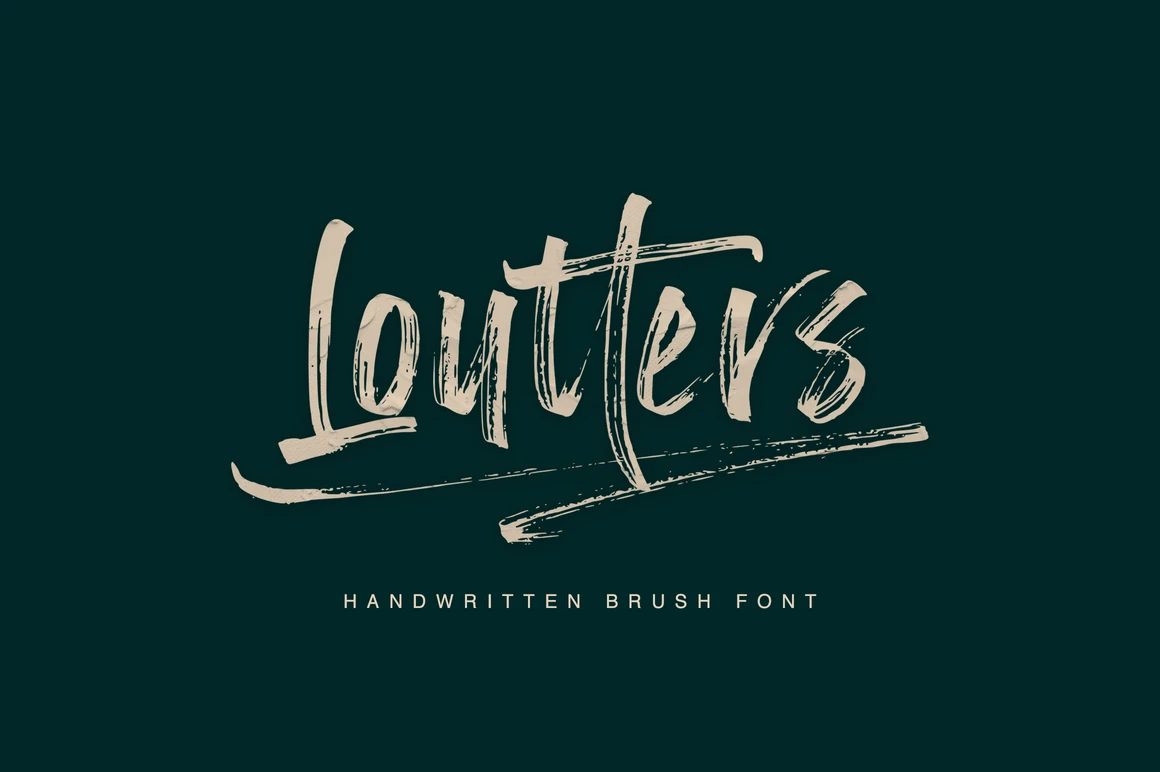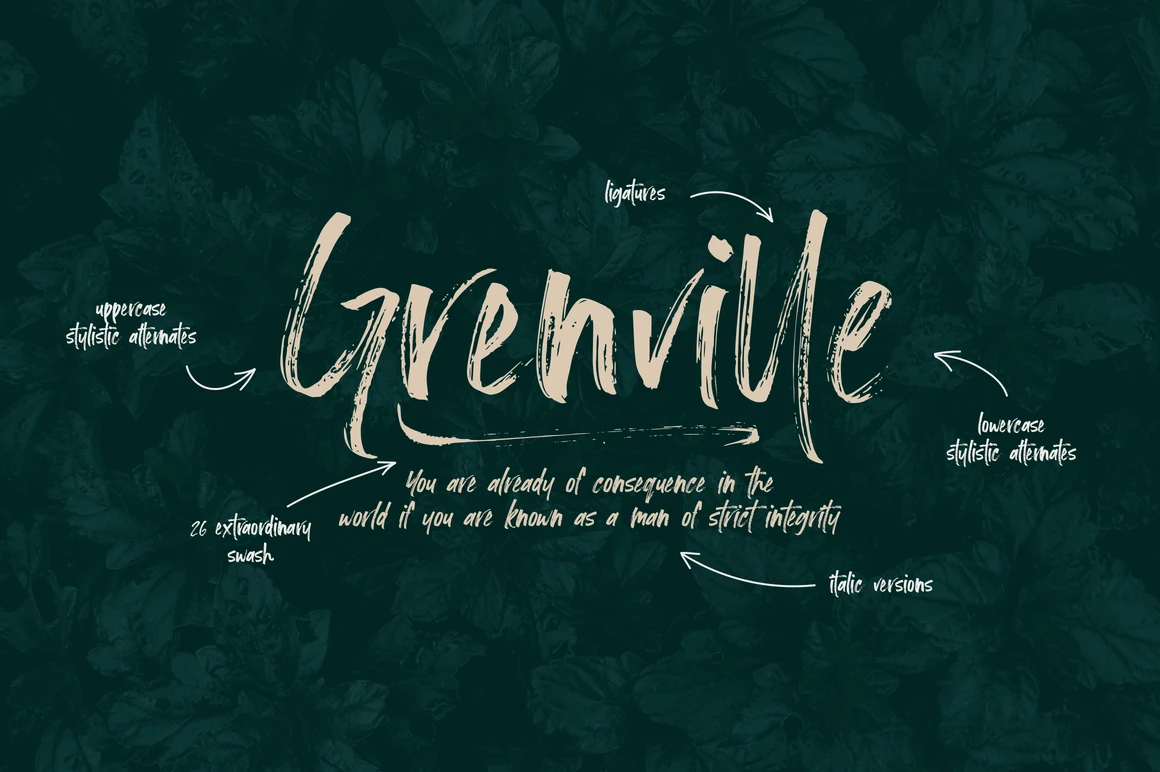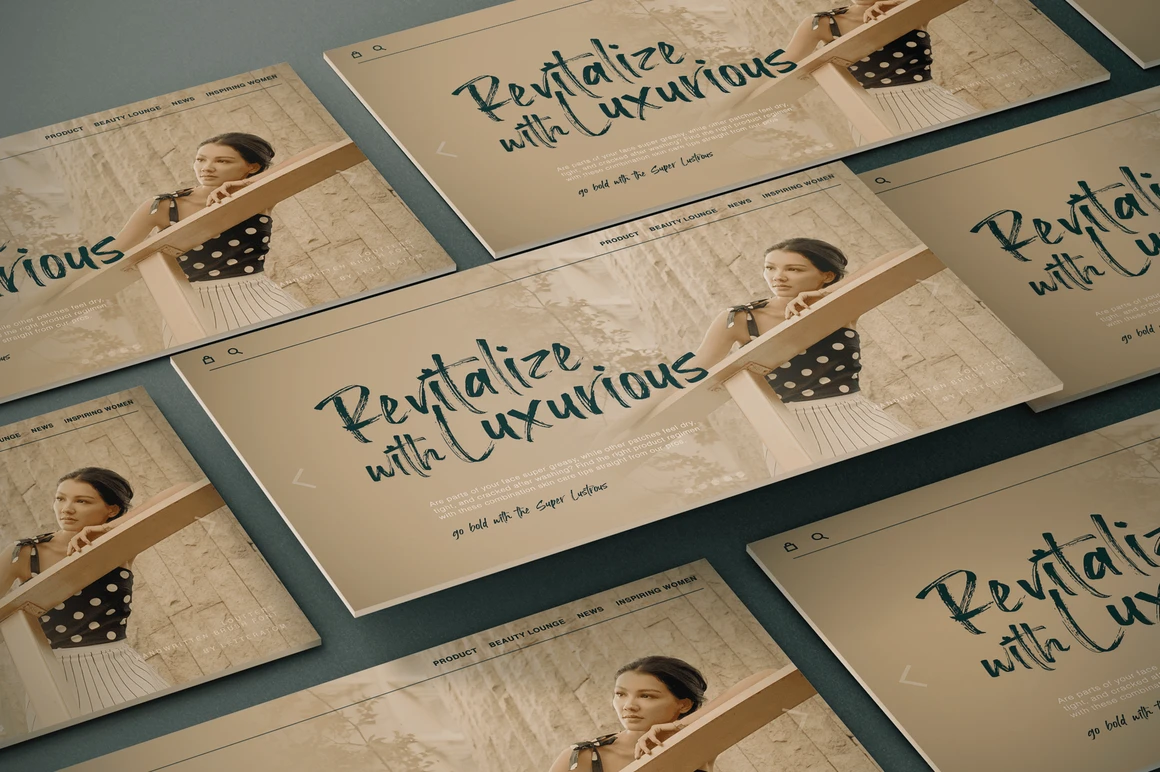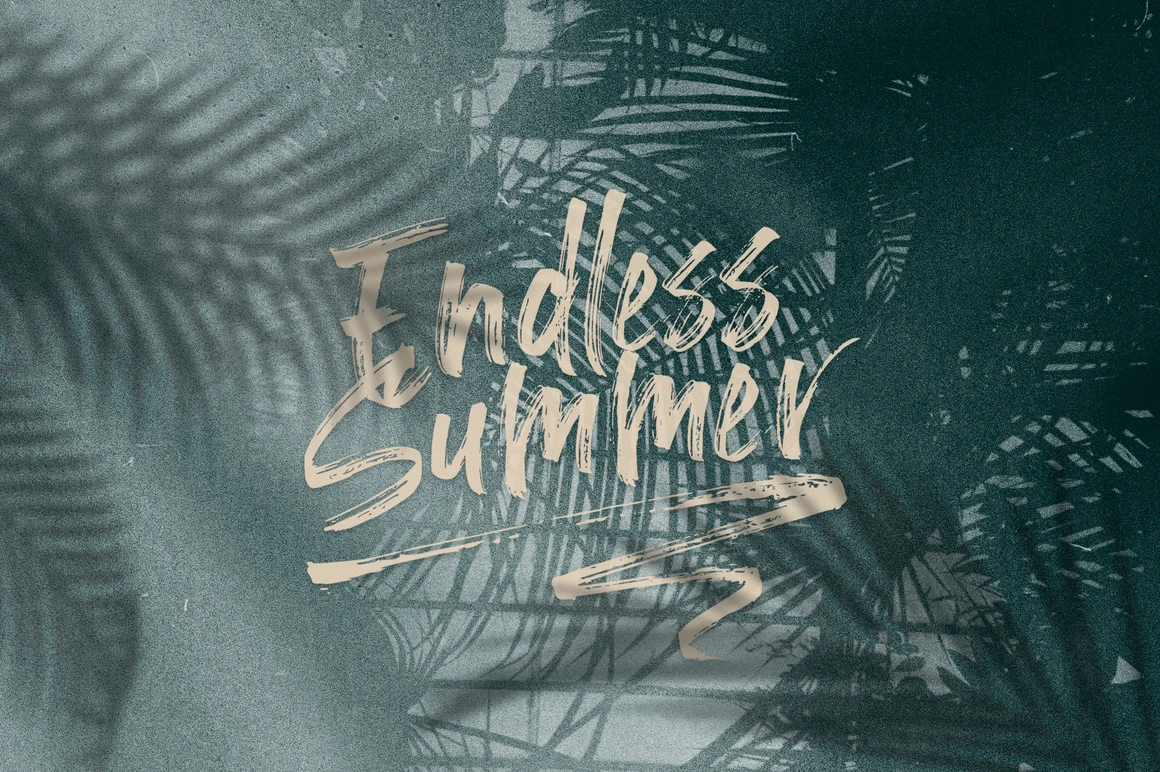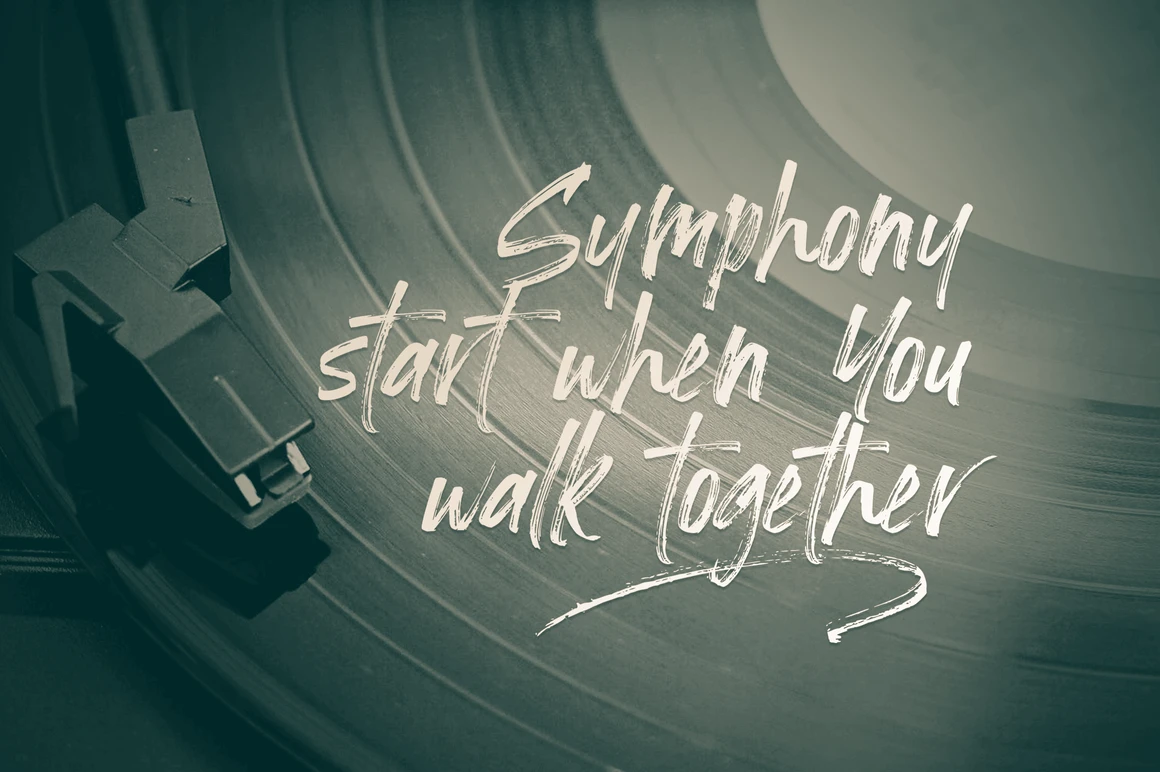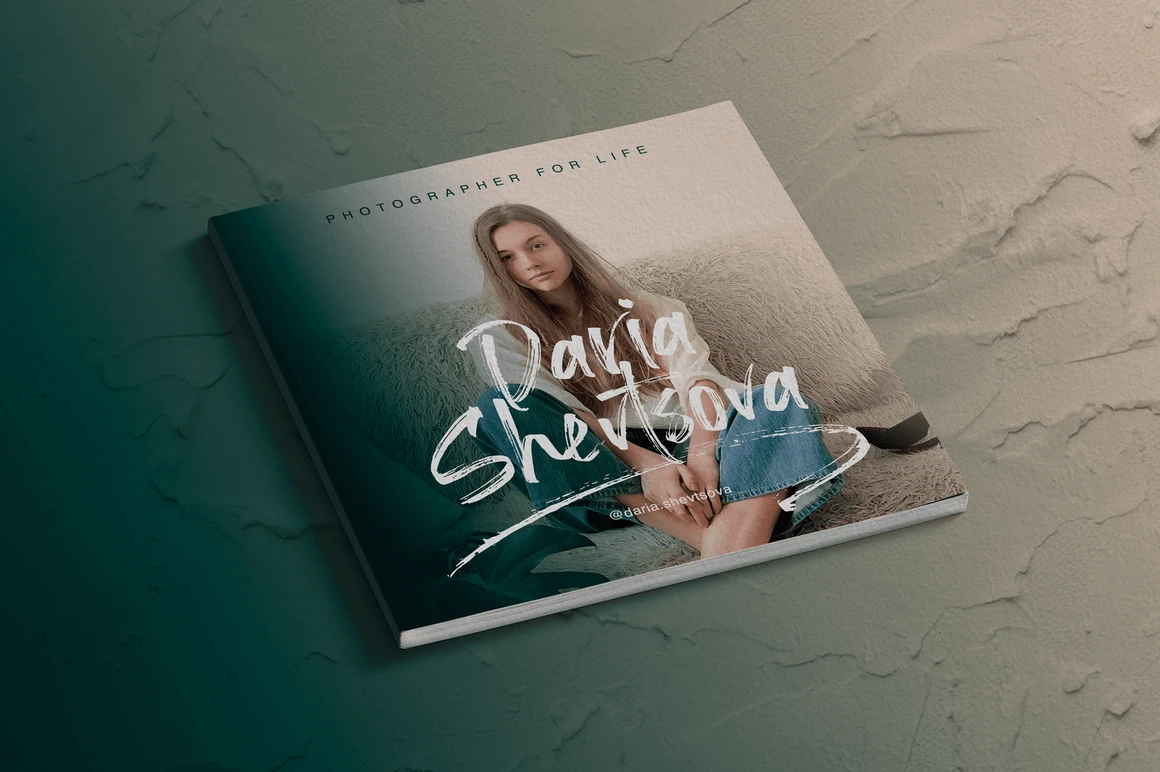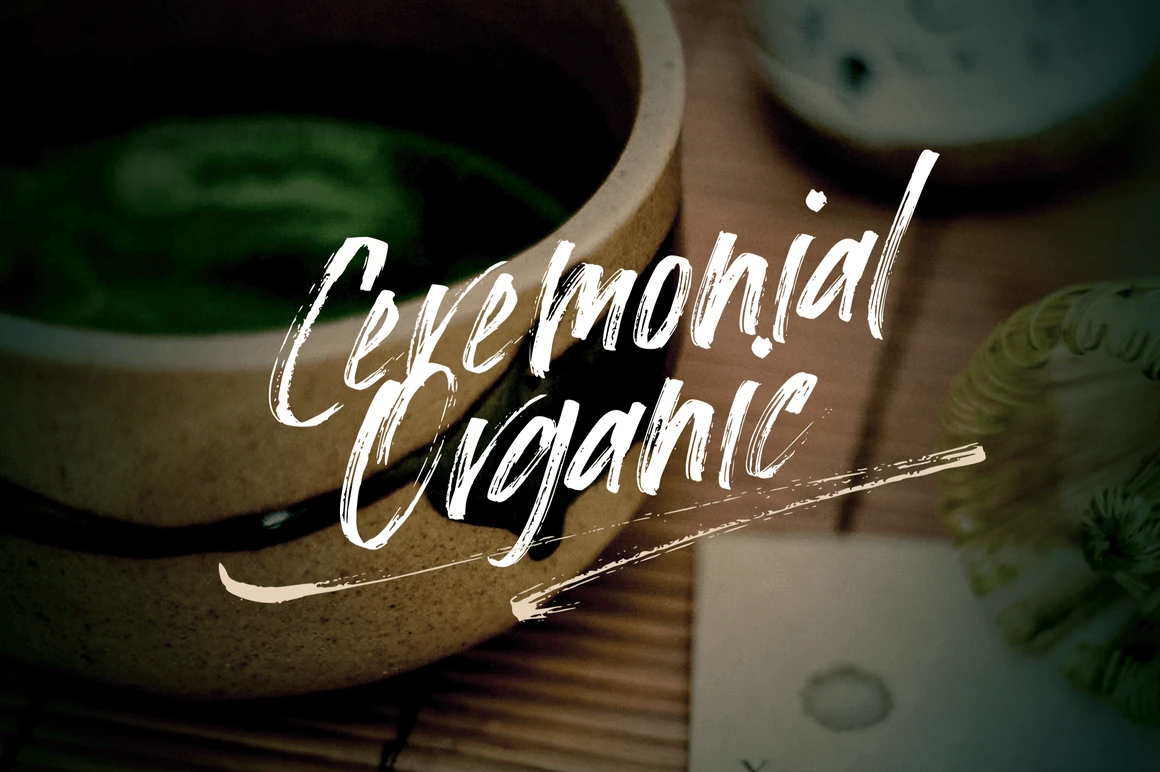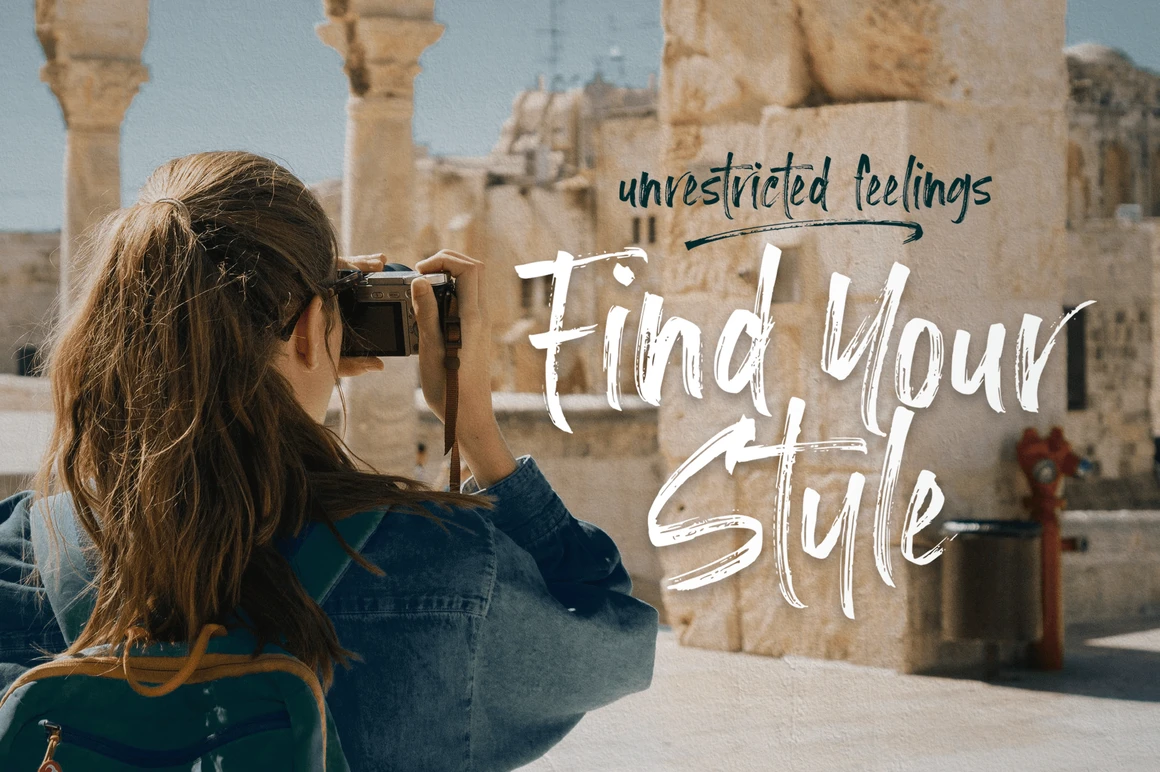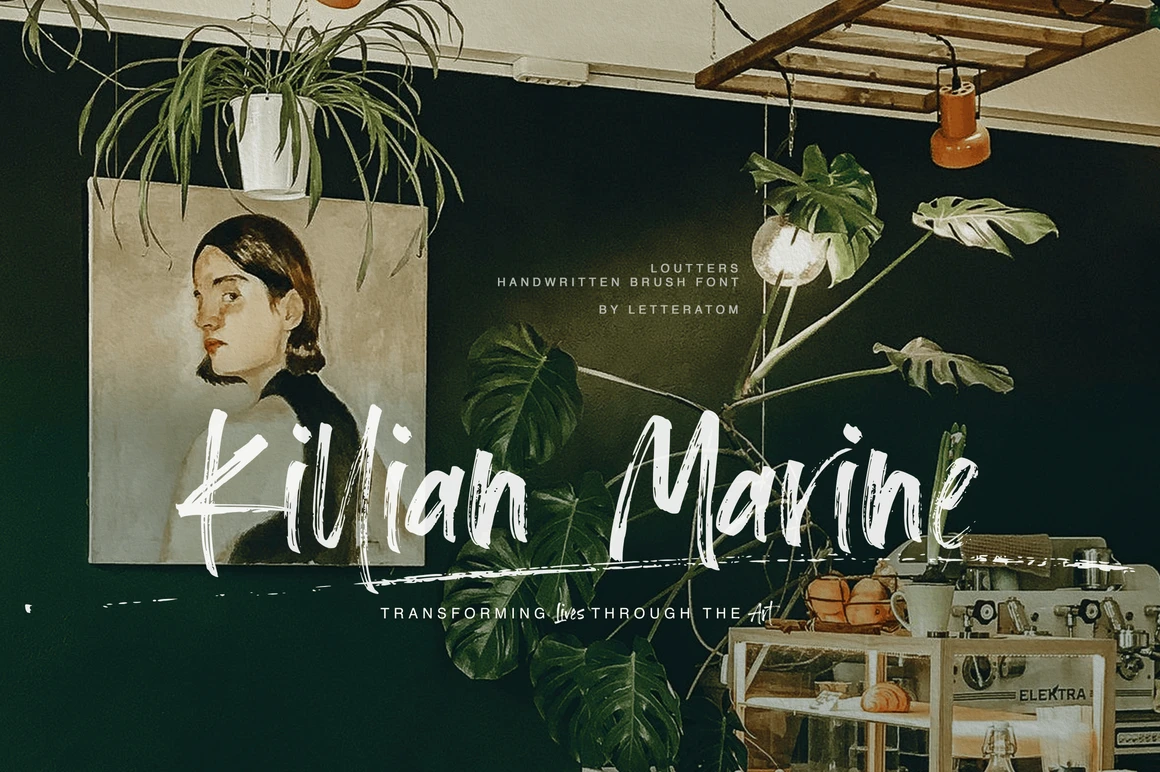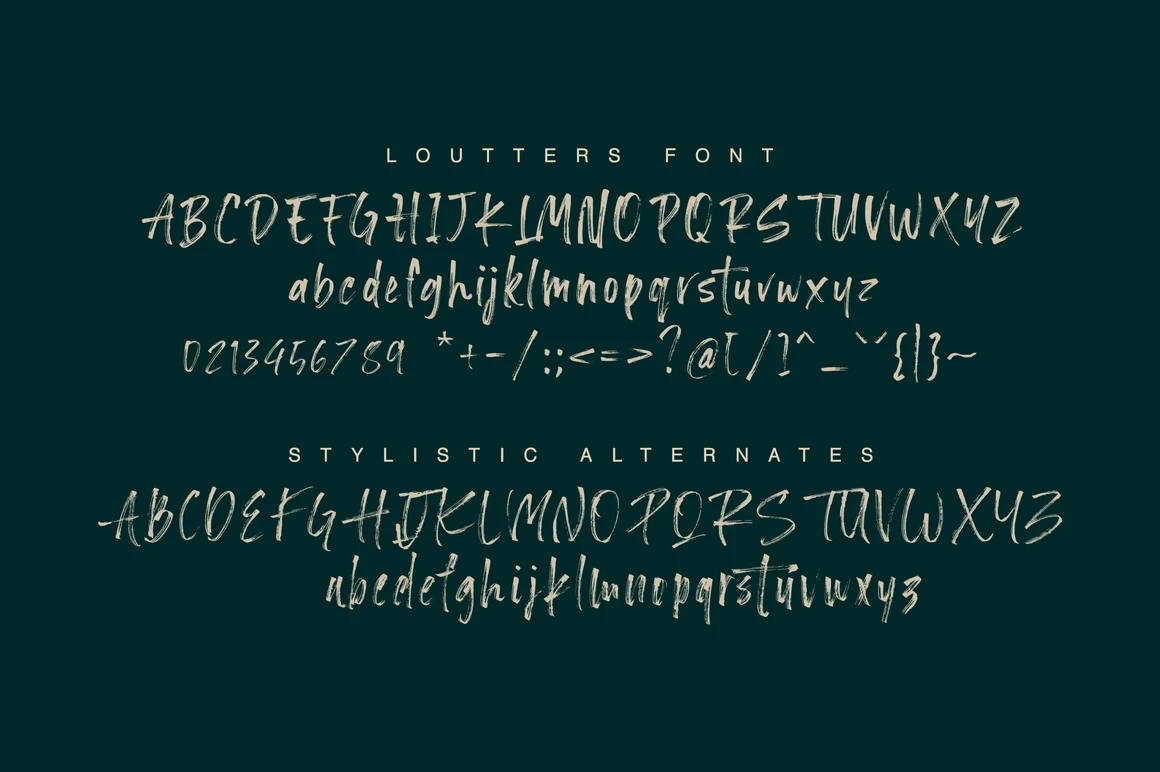
Loutters, handwriting that really stands out and attracts attention. With a fast and textured sweep style, Loutters is very easy to use for various design needs such as logos, brands, packaging, book titles and more, and is suitable for use in any background image.
Play with Loutters and let your typography do the talking.